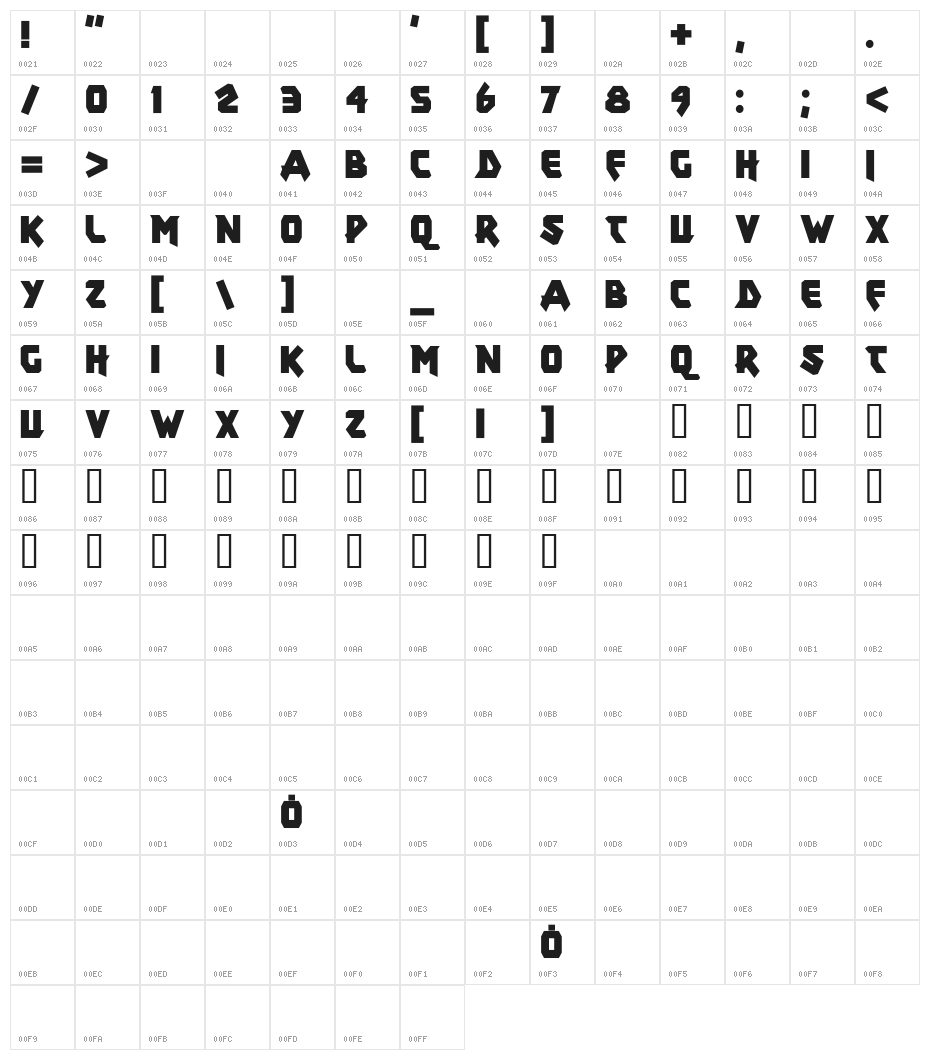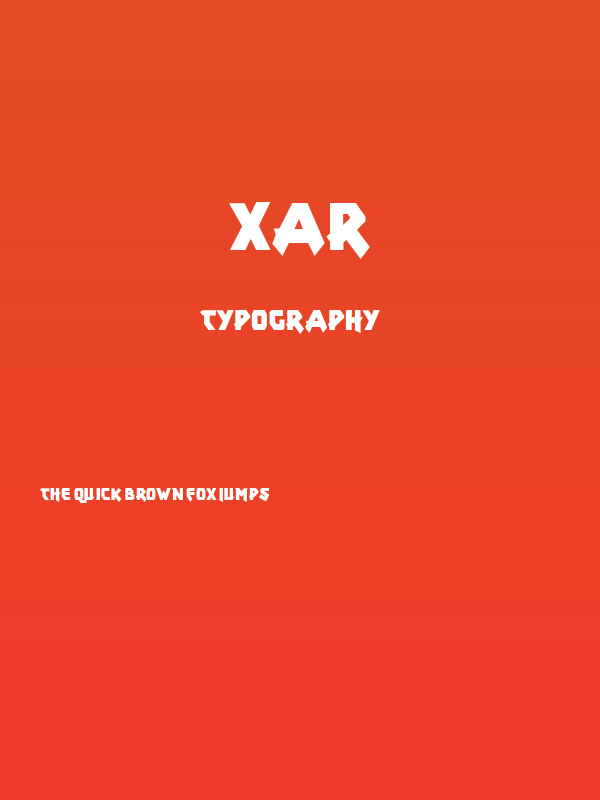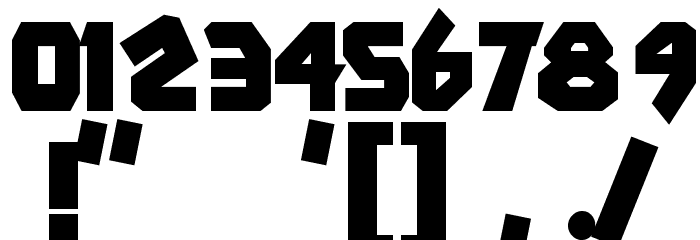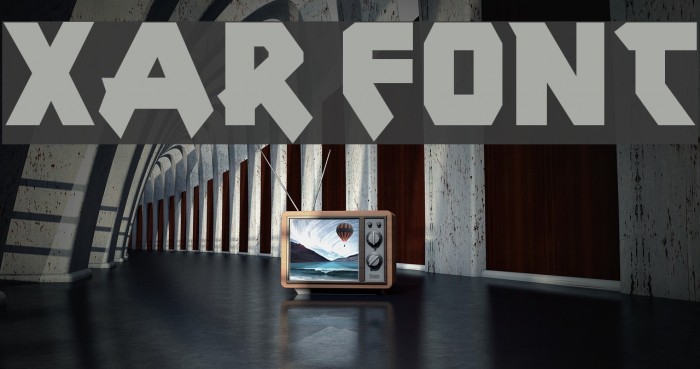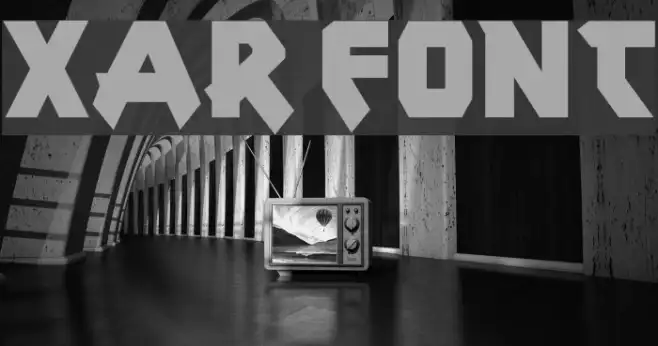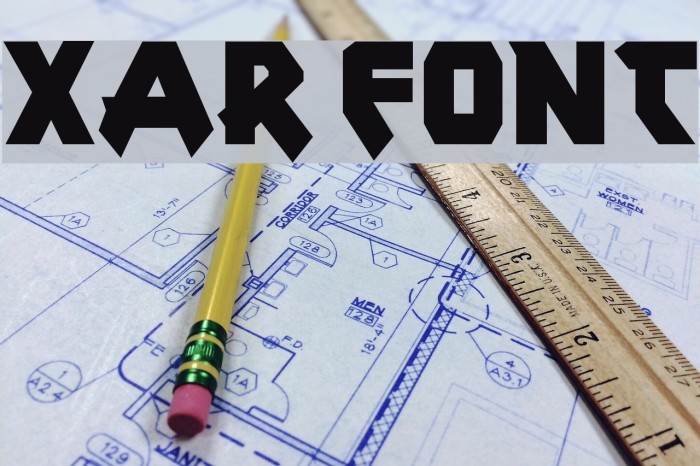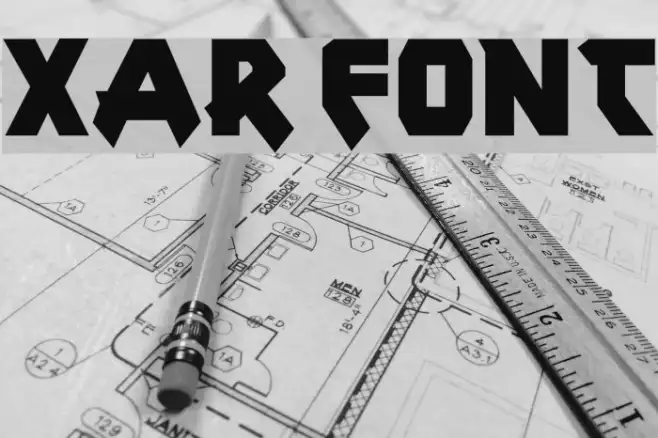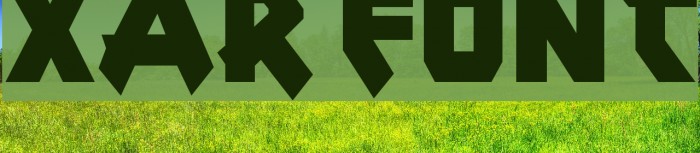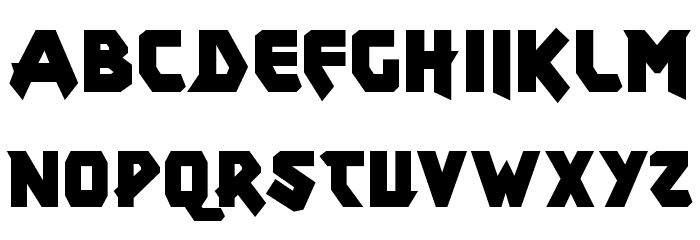
xar Font
xar Description
This font features a bold, geometric design with sharp angles and a strong presence. The characters are constructed with thick strokes and a blocky appearance, giving them a modern and industrial feel. The uppercase letters are particularly striking, with a uniform height and width that creates a cohesive look. The numerals and special characters maintain the same bold style, ensuring consistency across all text elements. This font's unique design makes it stand out, with its angular shapes and solid structure providing a sense of strength and stability.